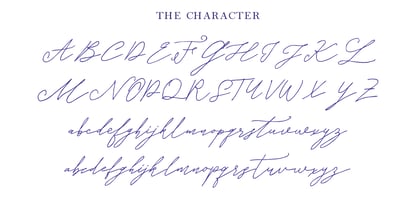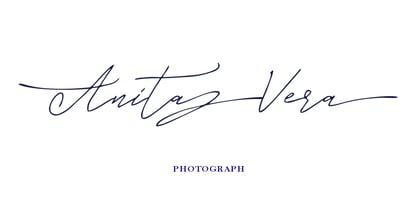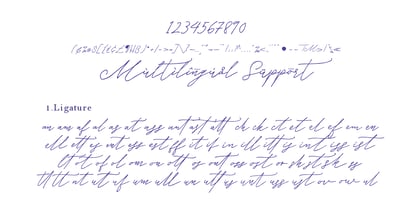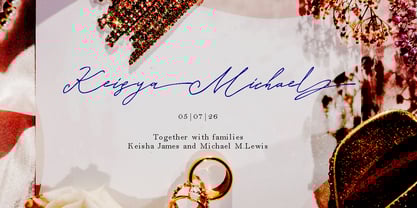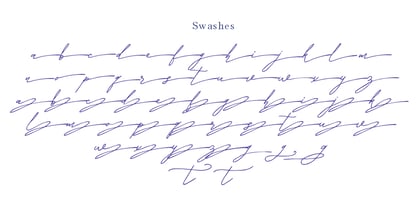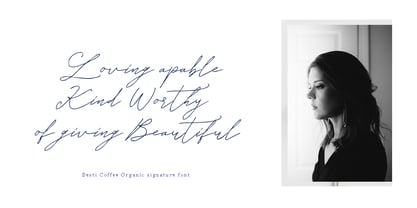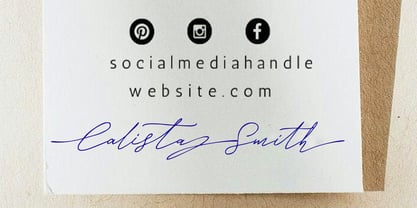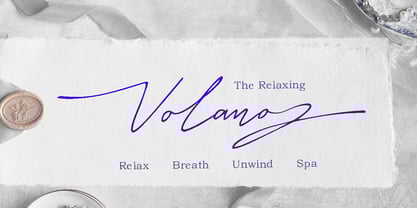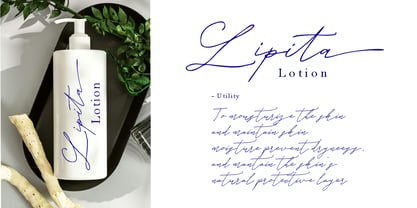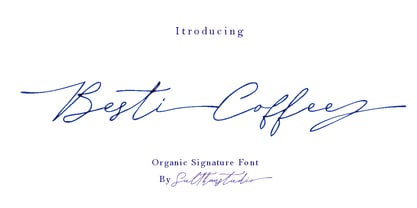
Besti coffee
by Sulthan Studio
The Besti coffee Font Family was designed by Nasrullah and published by Sulthan Studio. Besti coffee contains 2 styles and family package options.
Besti Coffee is a free-flowing organic signature font that combines natural and modern impressions. This font is designed to provide elegant feel, which is interconnected and complements the handwritten style. The pen strokes used in this font provide warmth and character that are very suitable for branding, design, invitations, and various other creative needs.